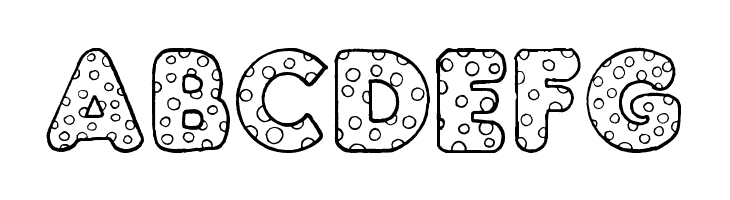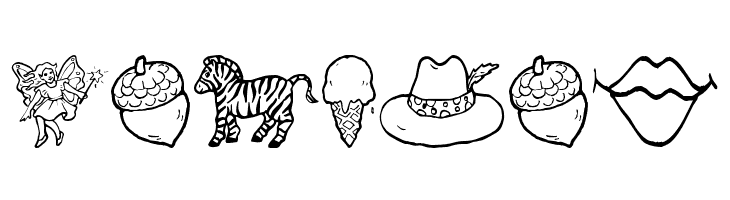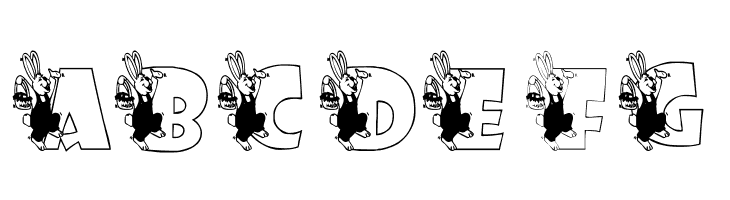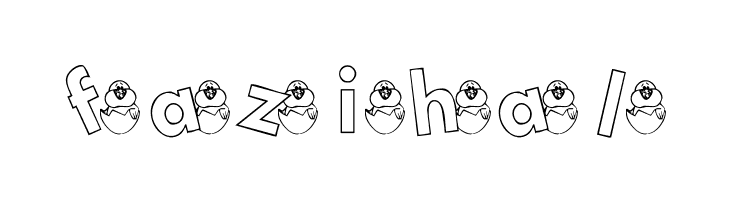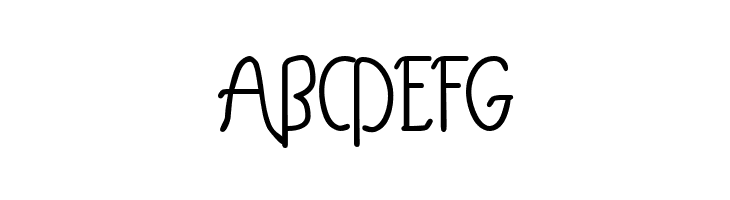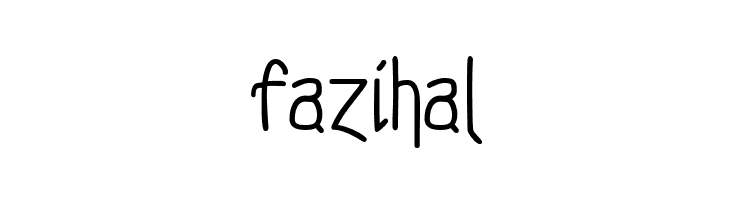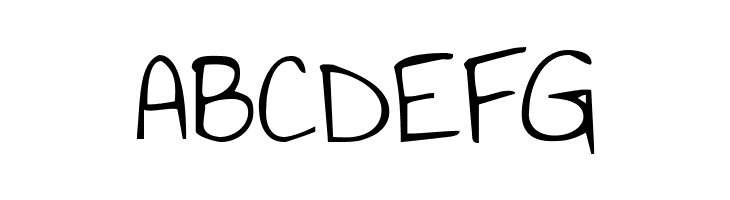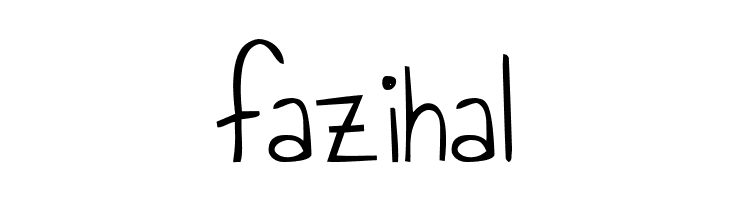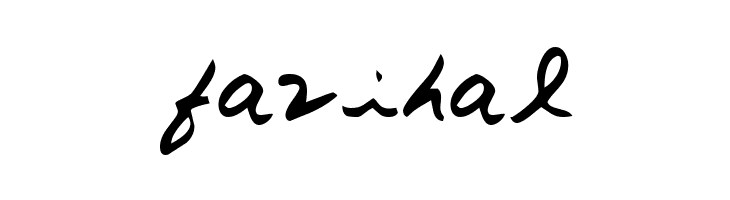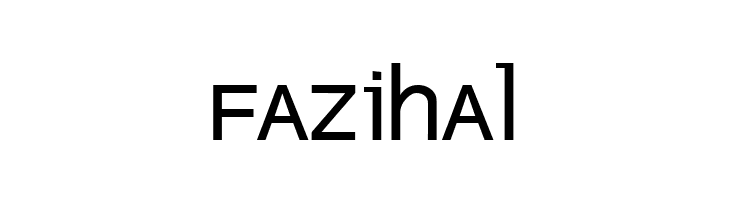
A playful and artistic font with elongated, curved lines and a modern look.
A playful, casual handwritten font with smooth, flowing lines.
A playful and informal handwritten font with dynamic letterforms.
A decorative serif font with Statue of Liberty silhouettes in uppercase letters.
A whimsical font with angel-themed characters, perfect for playful designs.
A playful font with angel bear illustrations integrated into each character.
A decorative font with angel illustrations integrated into each character.
A playful font with bear illustrations, perfect for children's projects.
A festive, decorative font with birthday-themed elements.
A playful, decorative font with letters inside beach balls, perfect for fun projects.
A playful font with each letter paired with a charming bear illustration.
A playful script font with decorative cat illustrations in uppercase letters.
A playful, decorative font featuring cartoon rabbits integrated into each character.
A whimsical font with cartoonish chicken motifs integrated into each character.
A decorative and whimsical font with ornate, playful details.
A decorative serif font with dragon illustrations entwined with each character.
A playful, duck-themed decorative font with cartoonish outlines.
A playful, Easter-themed decorative font with intricate details.
A whimsical font with elephant-themed letters, perfect for playful designs.
A decorative font with intricate fairy-themed embellishments on each letter.
A decorative font with intricate fish illustrations integrated into each character.
A decorative font with letters growing from flower pots, ideal for playful and nature-themed designs.
A whimsical, cartoon-inspired decorative font with playful illustrations.
A playful, decorative font with cartoon-like characters integrated into each letter.
A whimsical decorative font with garden-themed illustrations in each character.
A decorative font with floral embellishments and a vintage, whimsical style.
A decorative font with floral embellishments and bold, framed special characters.
A playful, decorative font with letters embedded in cartoonish characters.
A whimsical, decorative font with cartoon characters embedded in each letter.